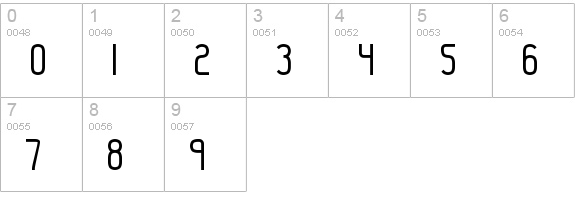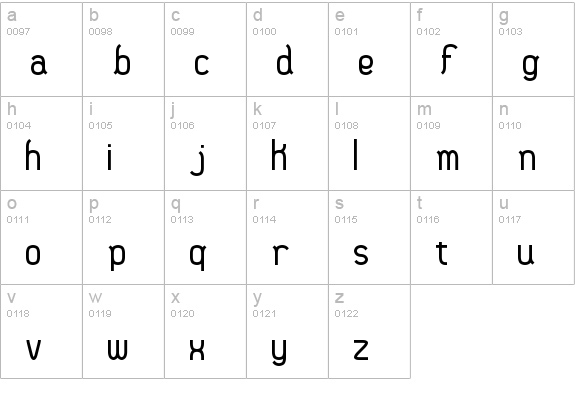
36 days ago BRK Font Details
36 days ago, the BRK font was released, offering a unique and stylish design that is sure to make your projects stand out. This font combines elegance with a modern twist, making it perfect for a wide range of creative endeavors. Whether you're designing a logo, creating a poster, or working on a website, the BRK font is sure to make a lasting impression. The best part is that this font is available for free download at FontsMarket.com. So you can easily add this eye-catching font to your collection without any cost. Don't miss out on the opportunity to elevate your designs with the BRK font today!